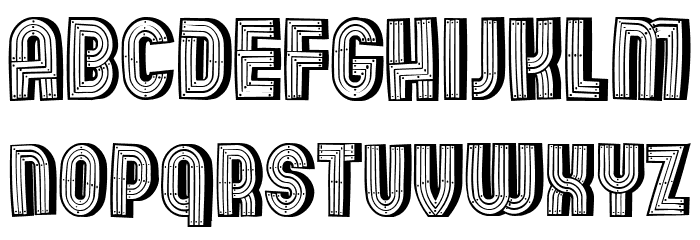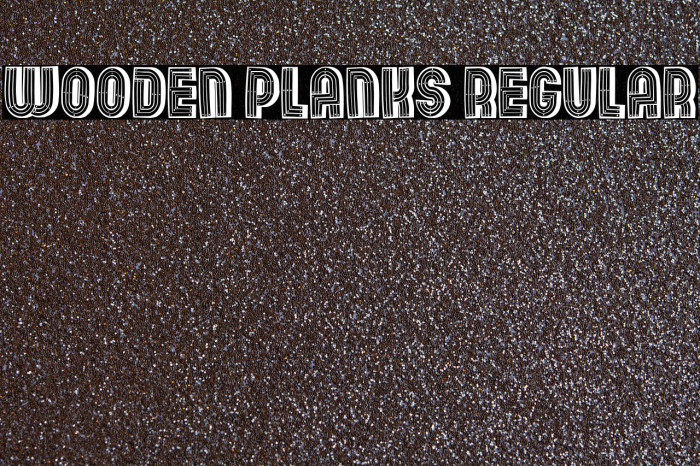
Wooden Planks Regular Font
This font features a bold and decorative style, reminiscent of wooden planks with a three-dimensional effect. Each character is designed with intricate line work that mimics the texture and grain of wood, giving it a rustic and handcrafted appearance. The letters are uppercase and have a consistent width, creating a uniform look across the alphabet. The font's unique design makes it stand out, making it ideal for projects that require a touch of creativity and originality. Its playful yet structured form is perfect for designs that aim to capture attention and convey a sense of craftsmanship.
A bold, decorative font with a wooden plank texture and three-dimensional effect.
- Proposed Projects: Ideal for branding, posters, signage, and any project that requires a rustic or handcrafted aesthetic.